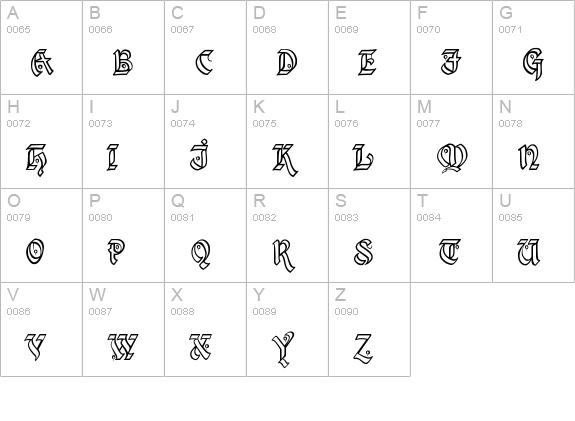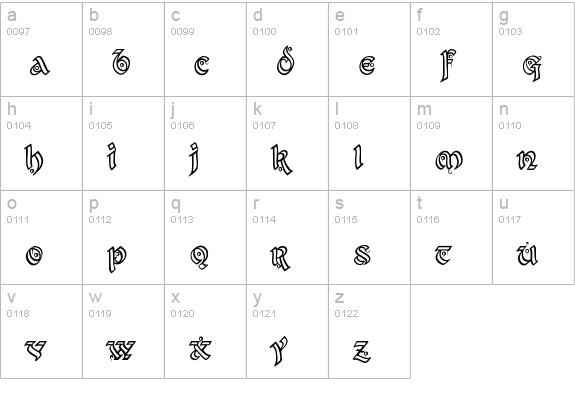
Kingthings Xander Outline font is a beautifully designed typeface that exudes elegance and sophistication. With its bold and distinctive outlines, this font is perfect for adding a touch of uniqueness to any project. Whether you're creating a logo, designing a poster, or crafting a captivating headline, Kingthings Xander Outline will make your text stand out. What sets Kingthings Xander Outline apart is not only its stunning aesthetics but also its versatility. The clean lines and well-crafted letterforms make it highly legible at any size, ensuring that your message is always clear and impactful. Its balanced proportions and subtle curves give it a timeless quality that will never go out of style. One of the best things about Kingthings Xander Outline font is that it is completely free! Yes, you read that right. This fantastic typeface is freely available to download at FontsMarket.com. You no longer have to worry about breaking the bank to get your hands on high-quality fonts. With Kingthings Xander Outline, you can elevate your designs without spending a penny. So why wait? Head over to FontsMarket.com and start downloading Kingthings Xander Outline font today. Whether you're a professional designer or a hobbyist, this font will surely become a valuable asset in your creative arsenal. Give your projects the professional touch they deserve with Kingthings Xander Outline font - the perfect combination of style, versatility, and affordability.